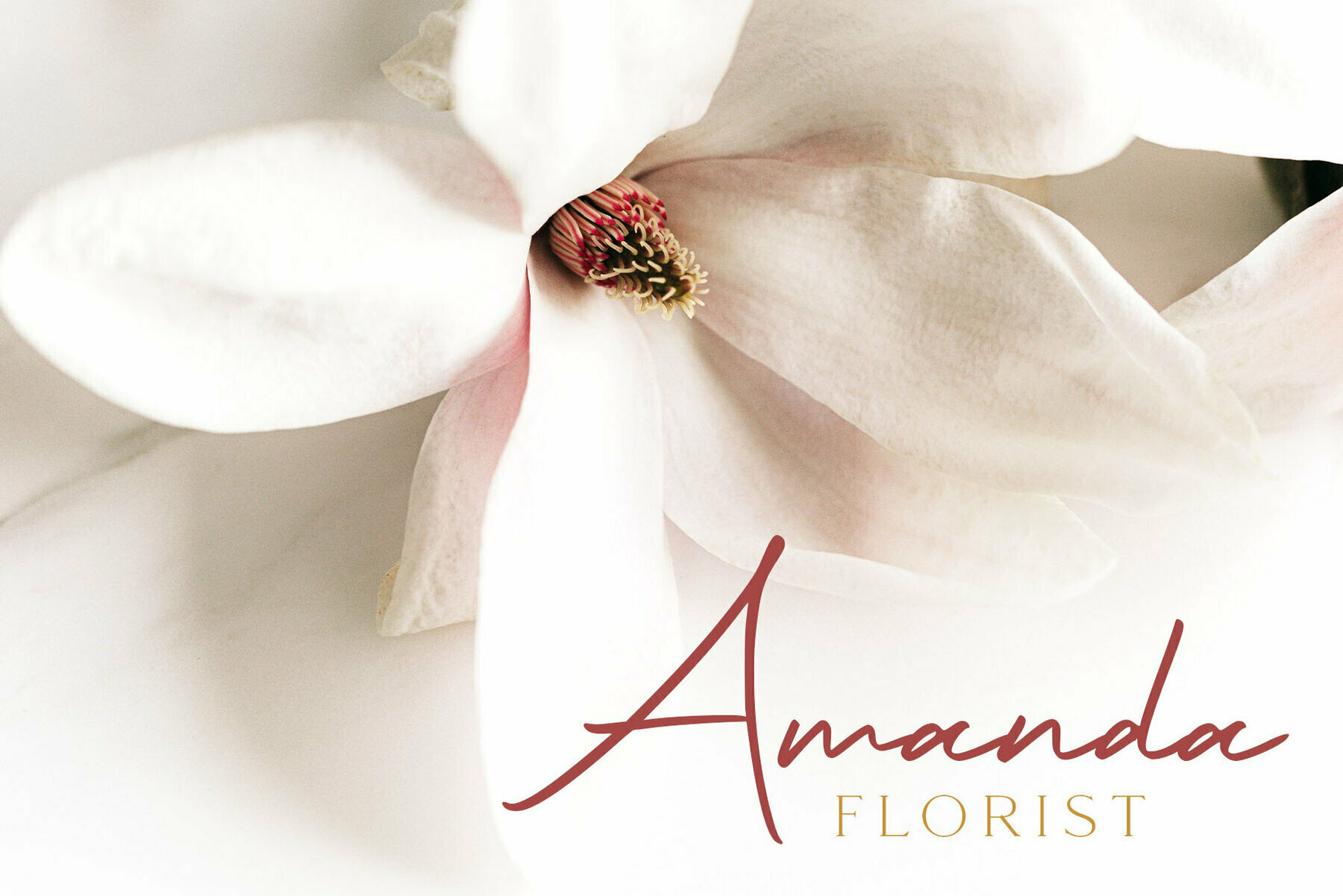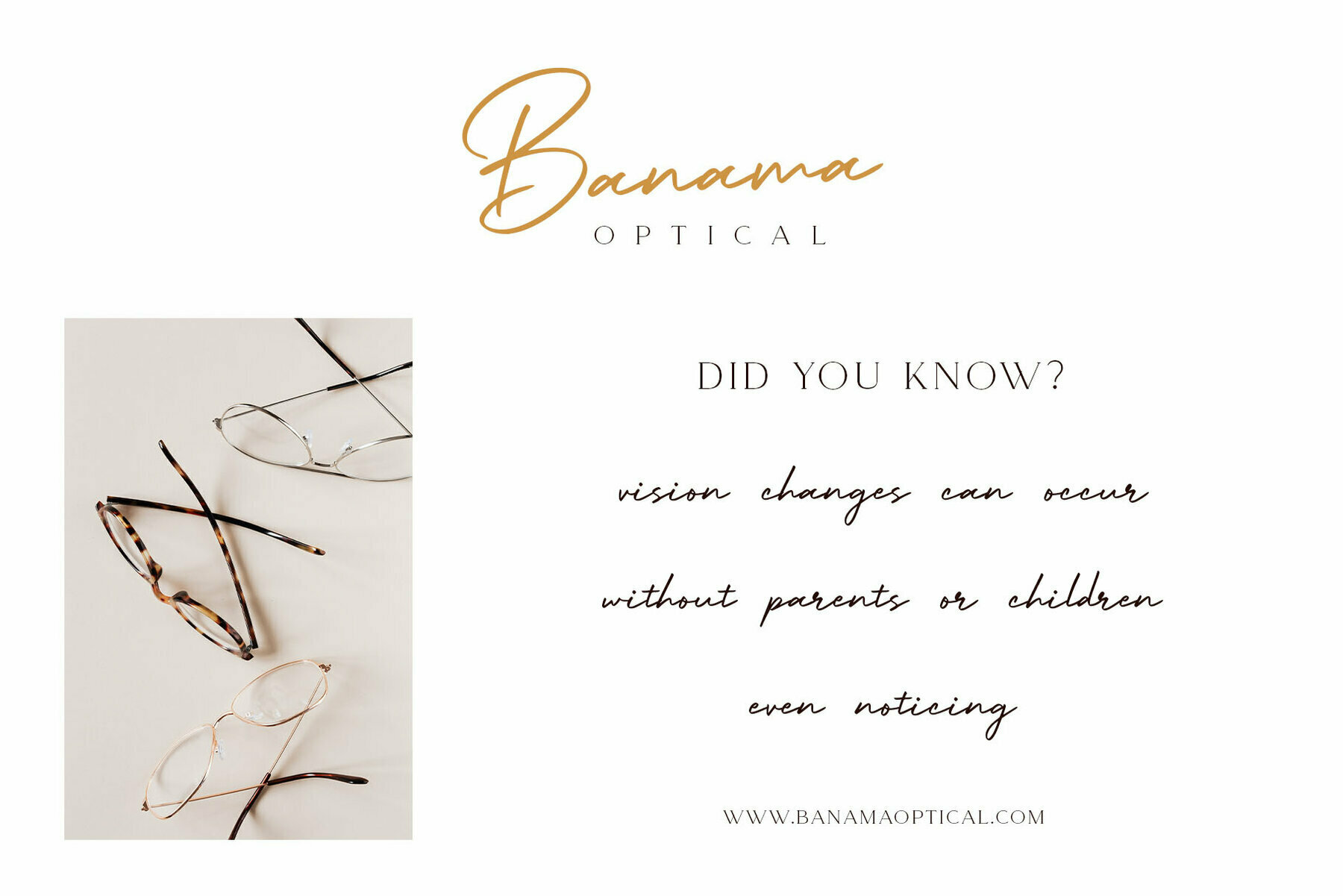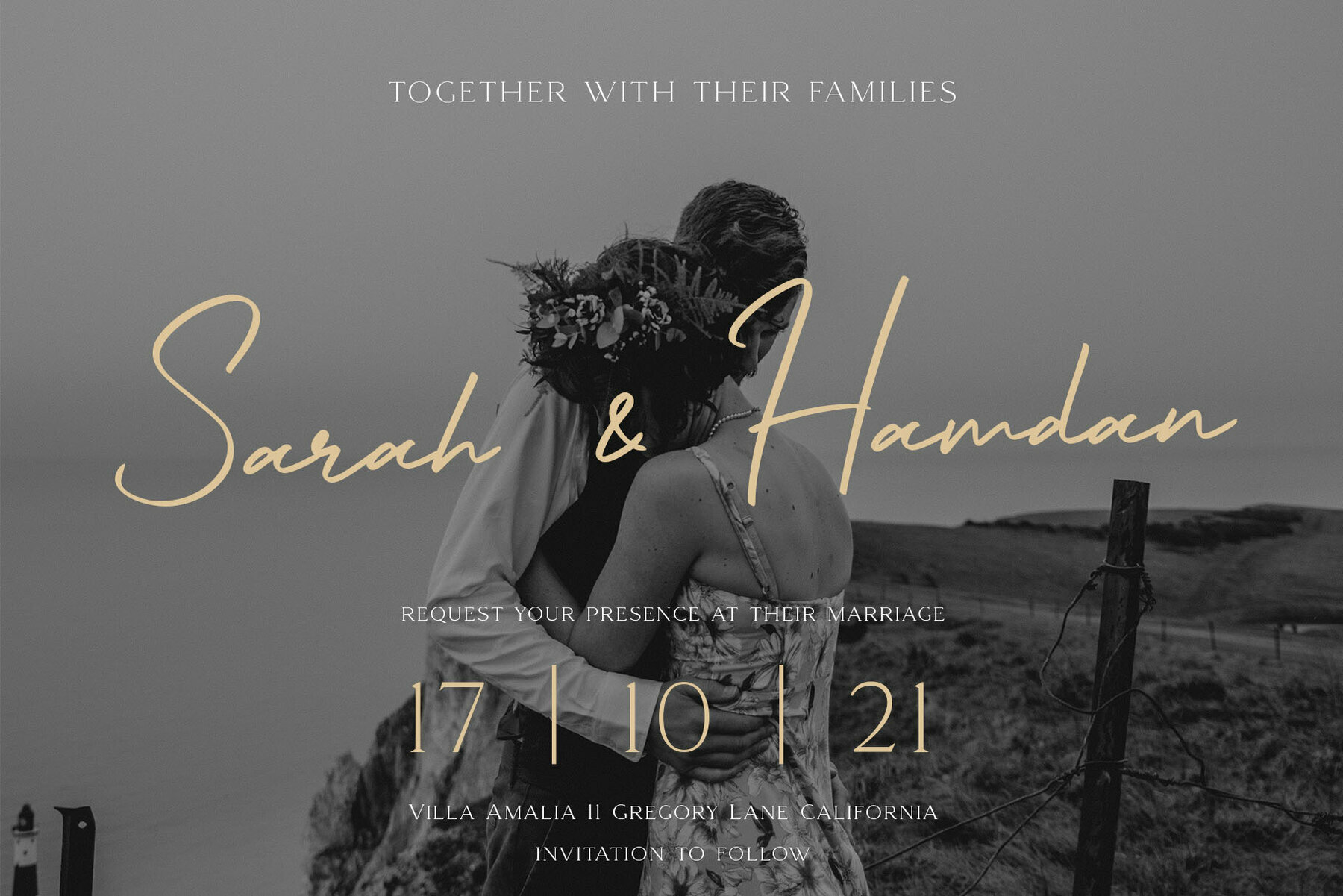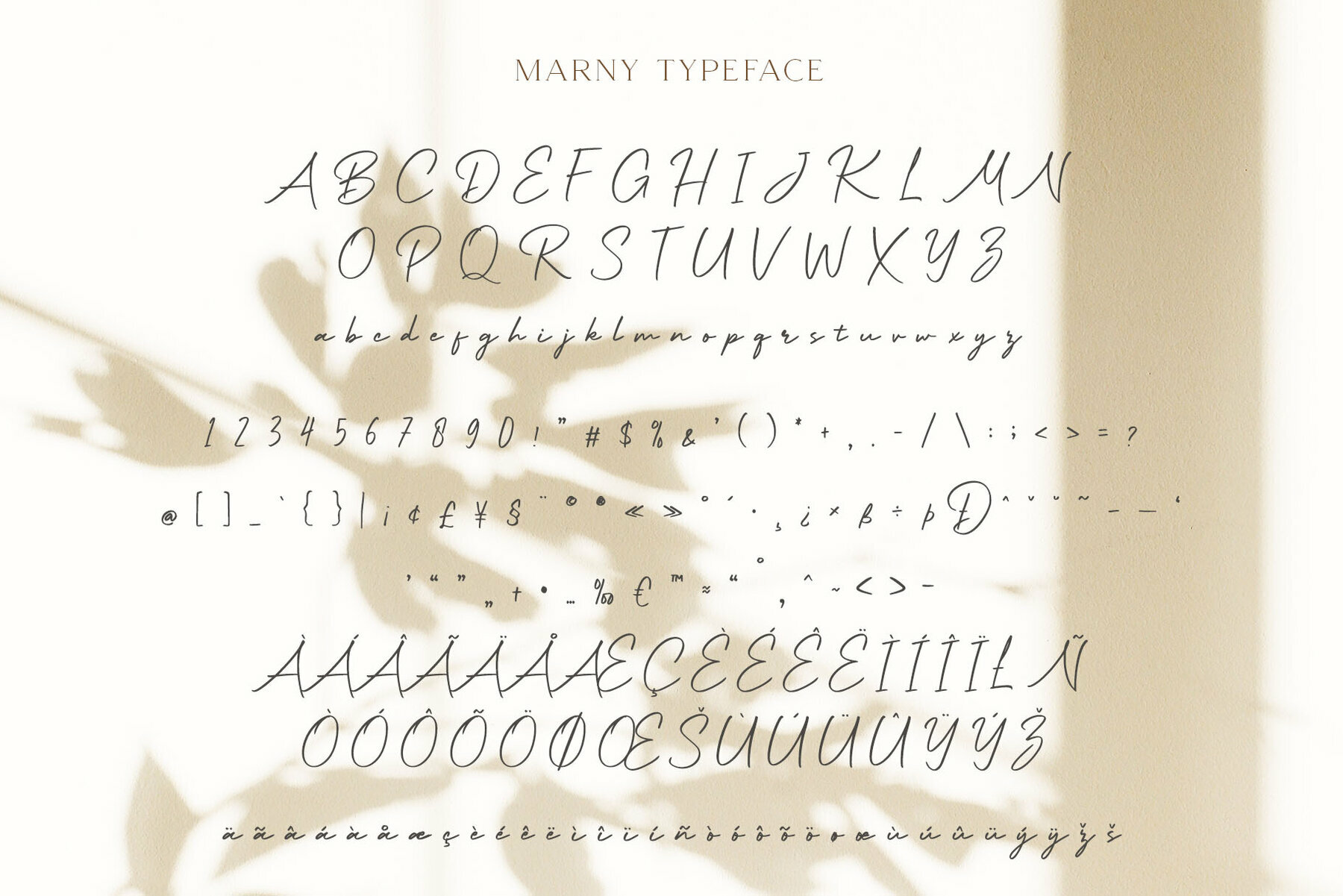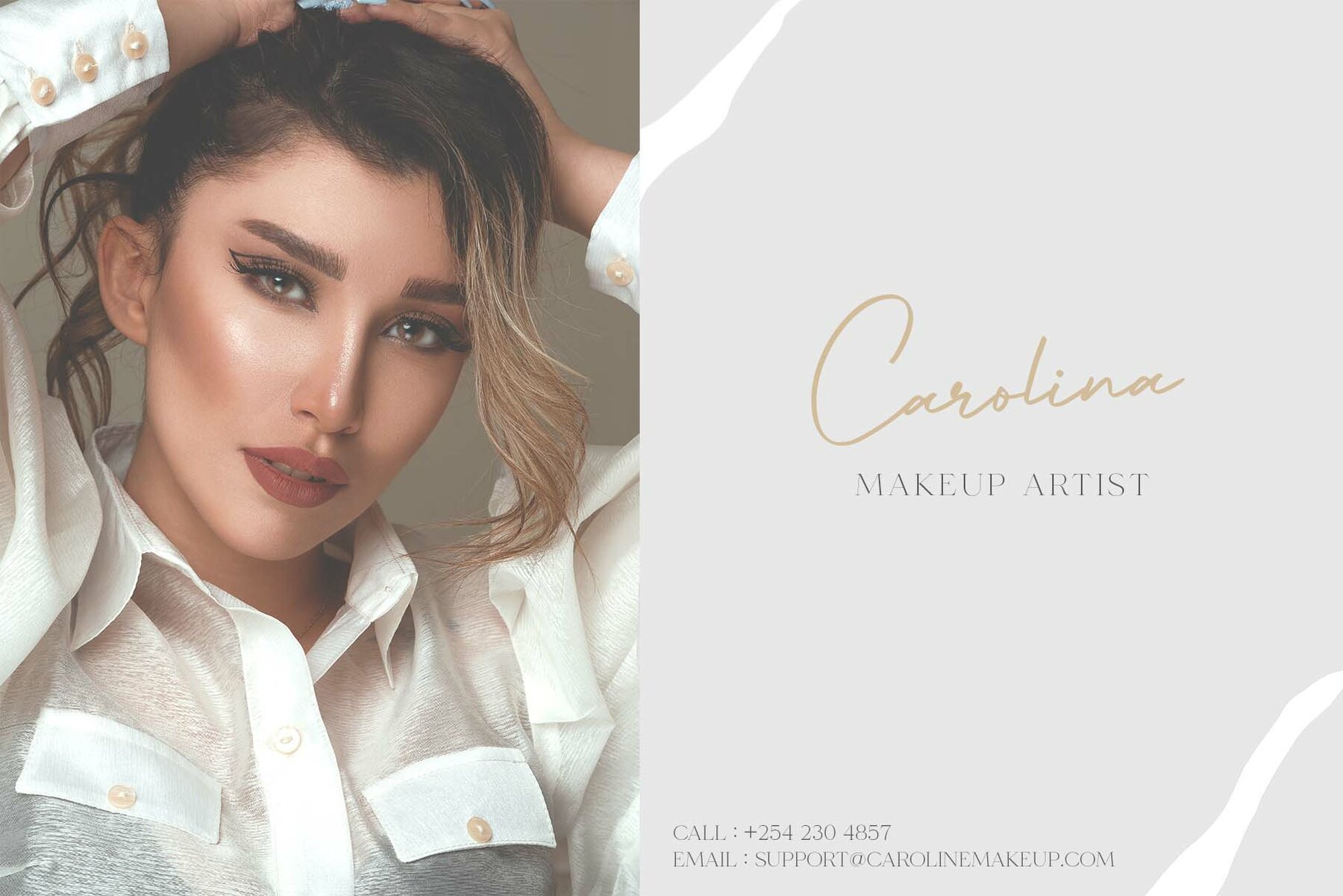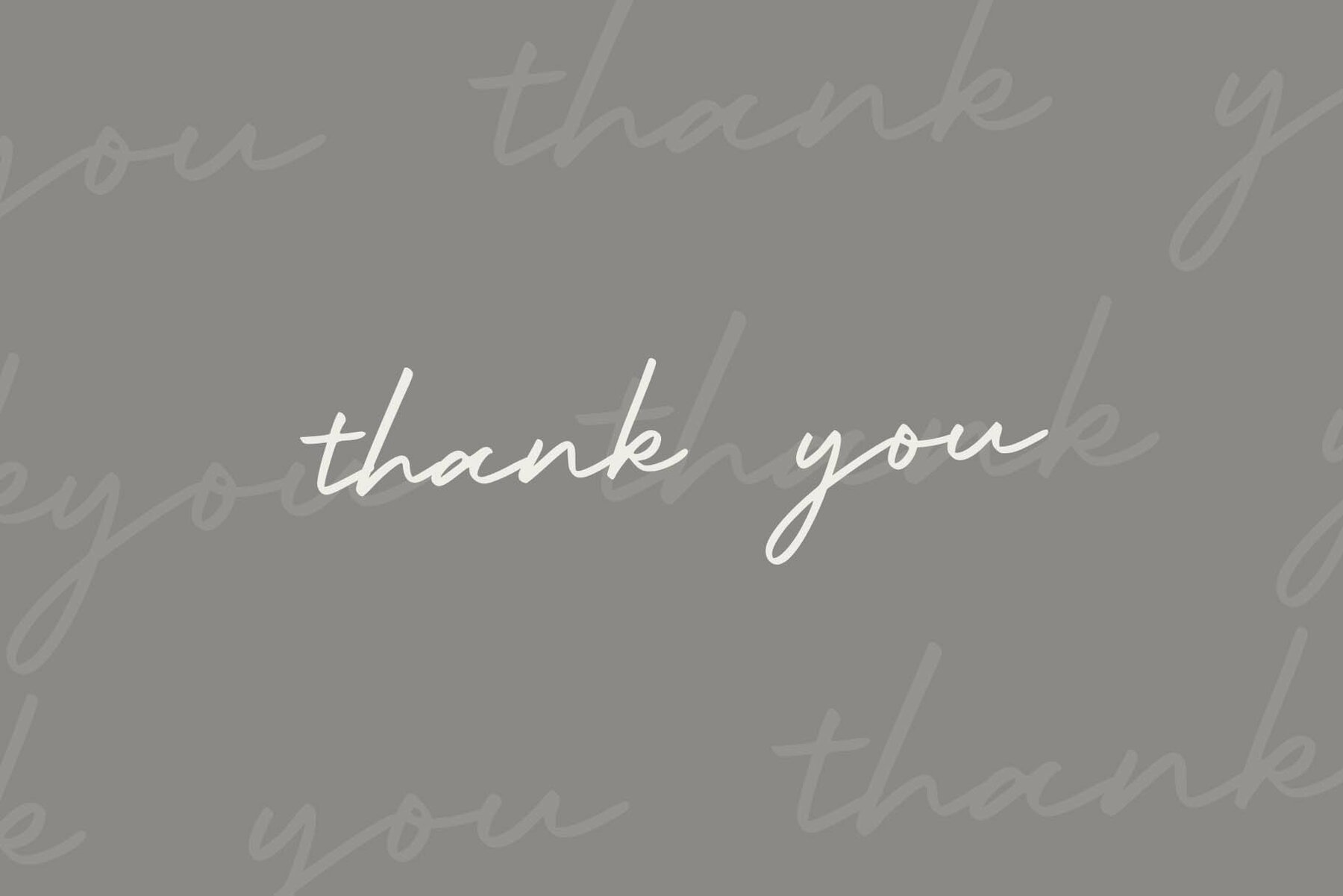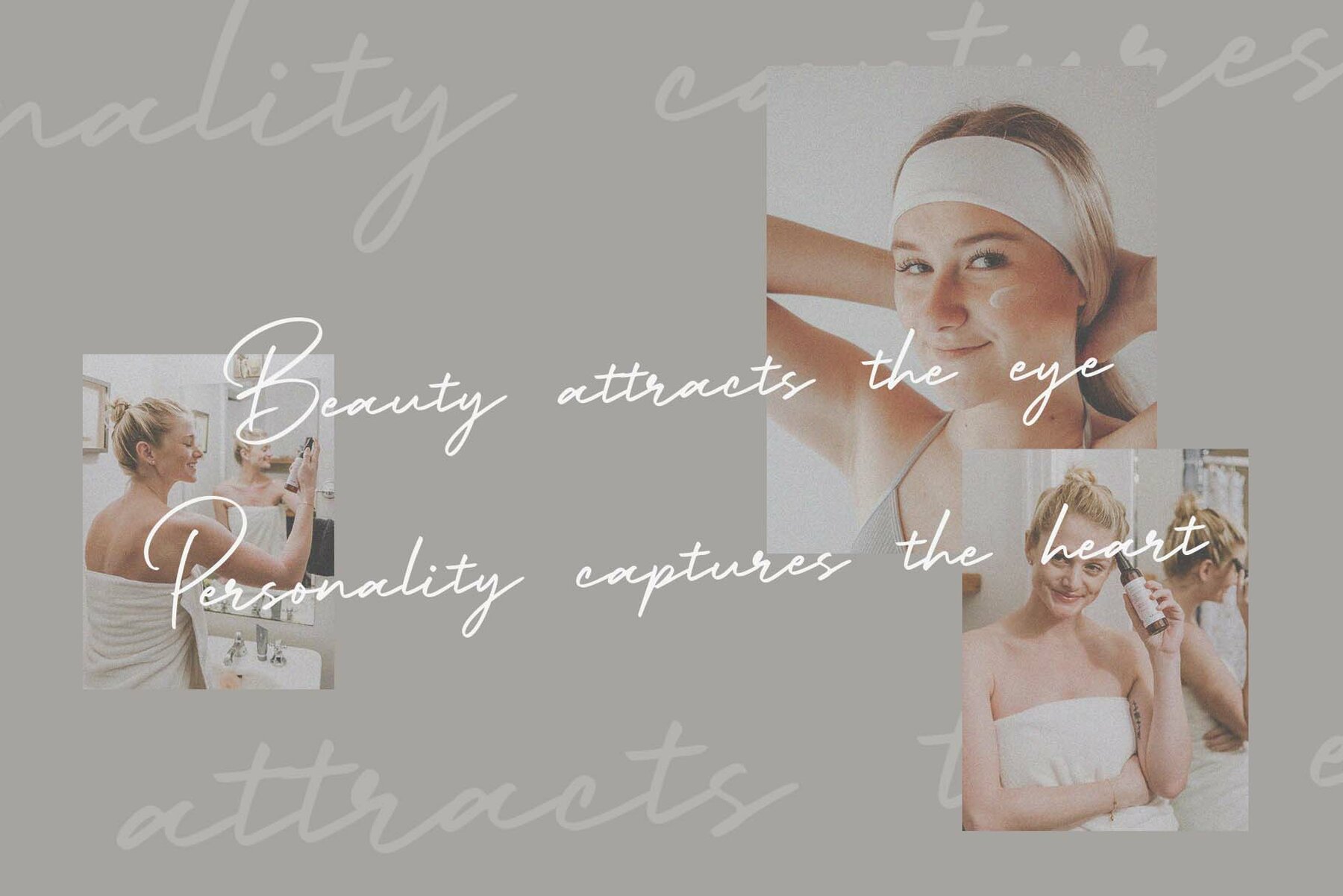
Marny Font
Embrace the sophistication of a meticulously crafted typeface with Marny, a digital script that exudes the elegance of a signature. Perfectly suited for fashion, e-commerce brands, or trend-savvy blogs, Marny brings an upscale and chic flair to any project. Whether you're enhancing a wedding boutique's allure or imbuing a business with graceful style, this typeface offers a timeless charm. Beyond branding, Marny finds its home in a variety of creative realms. Ideal for crafting logos, greeting cards, and quotes, it breathes life into posters, branding collateral, and name cards. Its versatility spans across blog headers, art quotes, and modern envelope lettering. Marny thrives in designs with hand-drawn touches or watercolor themes, complementing any DIY project, book title, or artistic endeavor with its trendy appeal.Marny: The Essence of Signature Elegance